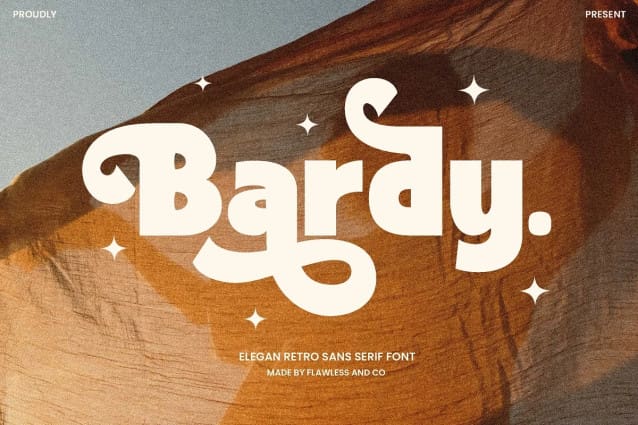
Bardy Font
“Bardy Font” — a masterpiece in the realm of elegant retro sans-serif fonts. Immerse yourself in the timeless charm of this typeface, where classic design meets contemporary sophistication. Bardy is not just a font; it’s a journey back in time with a modern twist, carefully crafted to enhance your design projects.